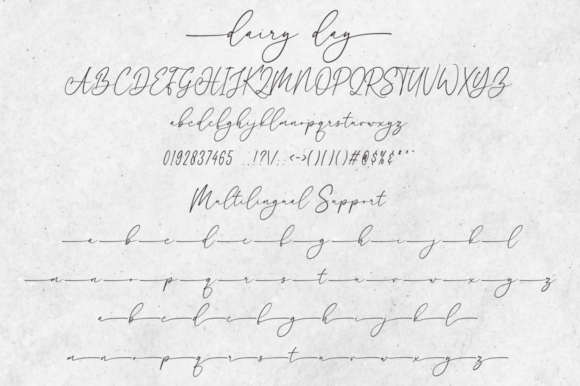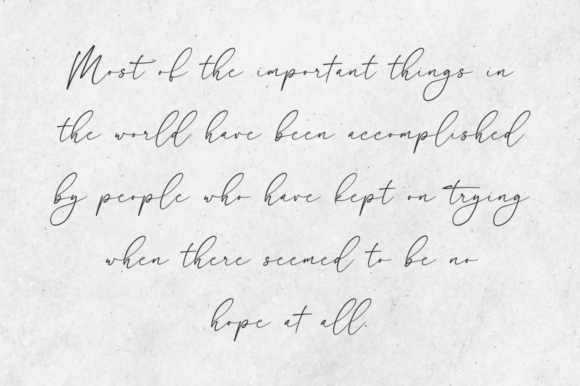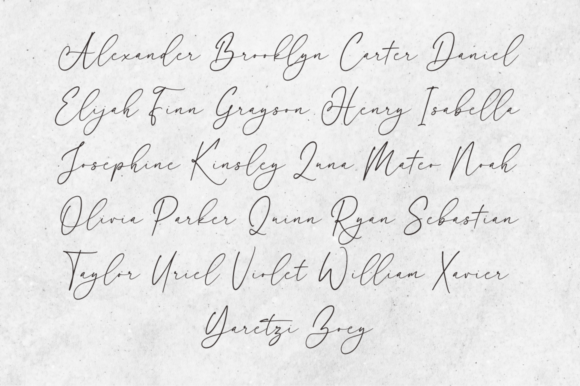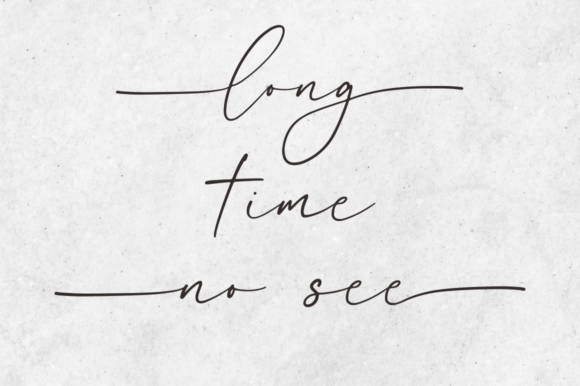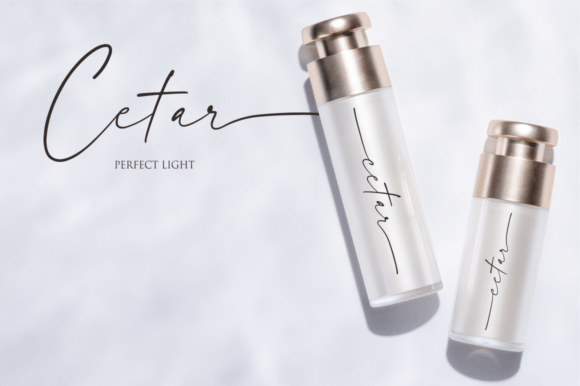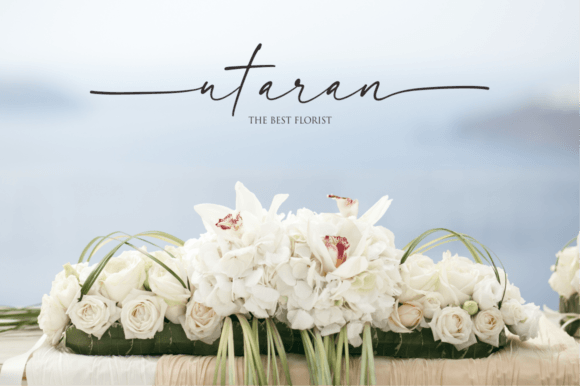
Dairy Day Font: Elevate Your Designs with Modern Calligraphy
Are you looking for a font that can add a touch of elegance and sophistication to your designs? Look no further than the Dairy Day Font, a modern calligraphy font that is sure to take your projects to the next level. With its beautiful swashes and ligature characters, this font is perfect for designers and crafters who want to create stunning visual content.
What is Dairy Day Font?
Dairy Day Font is a modern calligraphy font that features beginning and ending swashes, giving it a unique and stylish look. The font is designed to be versatile and can be used for a variety of design projects, including digital wedding blogs, online shops, and social media. It’s also great for printing projects, such as business cards, logos, and watermarks.
Key Features of Dairy Day Font
- Modern Calligraphy Style: Dairy Day Font features a modern calligraphy style that is perfect for designers who want to add a touch of elegance to their designs.
- Ligature Characters: The font features ligature characters that can be used to create beautiful and unique text arrangements.
- Beginning and Ending Swashes: The font features beginning and ending swashes that can be used to add a touch of sophistication to your designs.
Uses of Dairy Day Font
Dairy Day Font is a versatile font that can be used for a variety of design projects, including:
- Digital Wedding Blogs: The font is perfect for digital wedding blogs, where you can use it to create beautiful and elegant text arrangements.
- Online Shops: The font can be used for online shops, where you can use it to create stunning product descriptions and promotional materials.
- Social Media: The font can be used for social media, where you can use it to create engaging and eye-catching posts.
- Clothing and Accessories: The font is great for designing clothing and accessories, such as t-shirts, hats, and bags.
- Logos and Business Cards: The font can be used to create stunning logos and business cards that will help you stand out from the competition.
Benefits of Using Dairy Day Font
There are many benefits to using Dairy Day Font, including:
- Elegance and Sophistication: The font adds a touch of elegance and sophistication to your designs, making them stand out from the competition.
- Versatility: The font is versatile and can be used for a variety of design projects.
Tips for Using Dairy Day Font
Here are some tips for using Dairy Day Font:
- Use it for Headings: The font is perfect for headings, where you can use it to create stunning and eye-catching text arrangements.
- Experiment with Swashes: The font features beautiful swashes that can be used to add a touch of elegance to your designs.
- Pair it with Other Fonts: The font can be paired with other fonts to create stunning and unique text arrangements.
| Font Name | Dairy Day Font |
| Author | NJStudio |
Dairy Day Font is a modern calligraphy font that is sure to take your designs to the next level. With its beautiful swashes and ligature characters, this font is perfect for designers and crafters who want to create stunning visual content. Whether you’re designing digital wedding blogs, online shops, or social media posts, this font is sure to add a touch of elegance and sophistication to your designs.